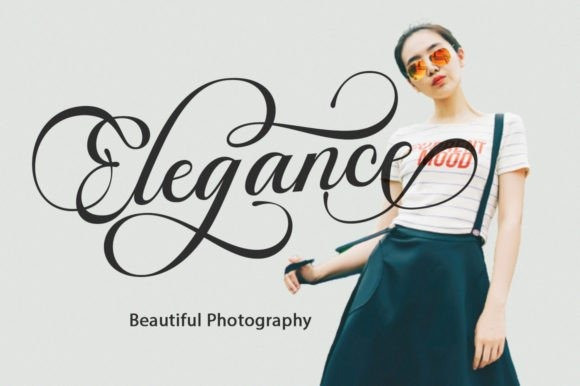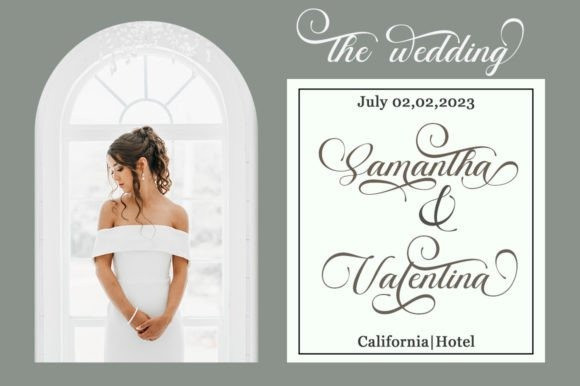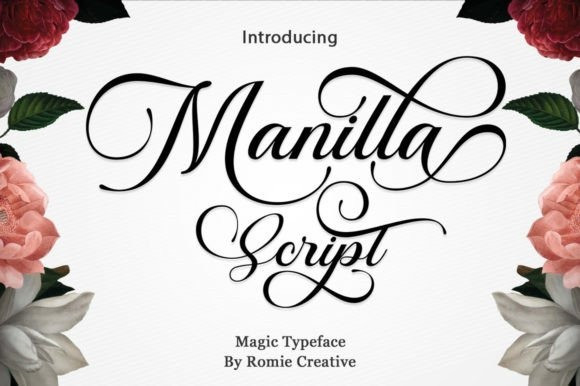
Manilla Script Typeface
Manilla Script Typeface is a dazzling script font. This font is neatly crafted and highly detailed. Whatever the topic, this font will be a wonderful asset to your font library, as it has the potential to enhance any creation. This font is PUA encoded which means you can access all glyphs and ligatures with ease!